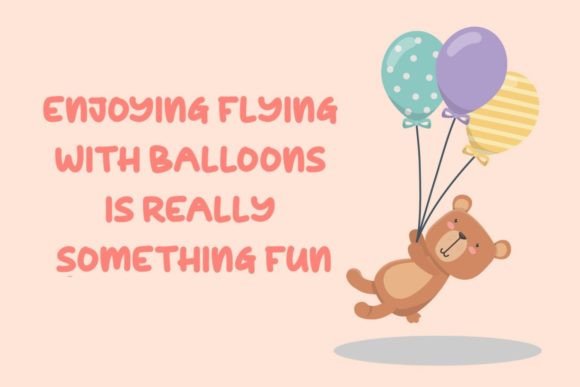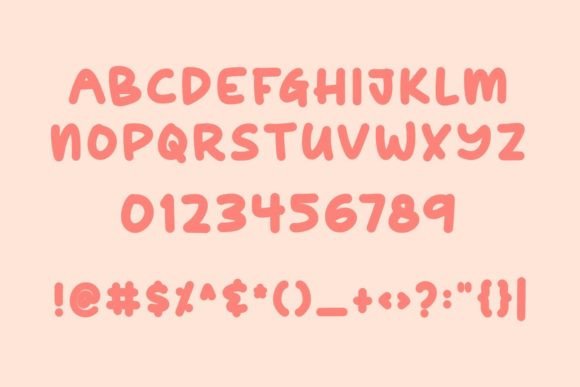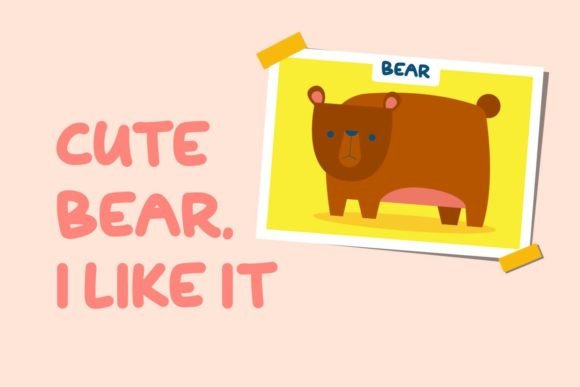
Introduction to Kindie Bear Font
Kindie Bear embodies fun, quirkiness and authenticity.
This enchanting handwritten font will turn any creative idea into a true standout .
Key Features of Kindie Bear Font
Why Choose Kindie Bear Font?
Kindie Bear Font offers exceptional quality and versatility, making it a valuable addition to your design toolkit. Whether you’re creating for personal projects or commercial use, Kindie Bear Font delivers professional results.